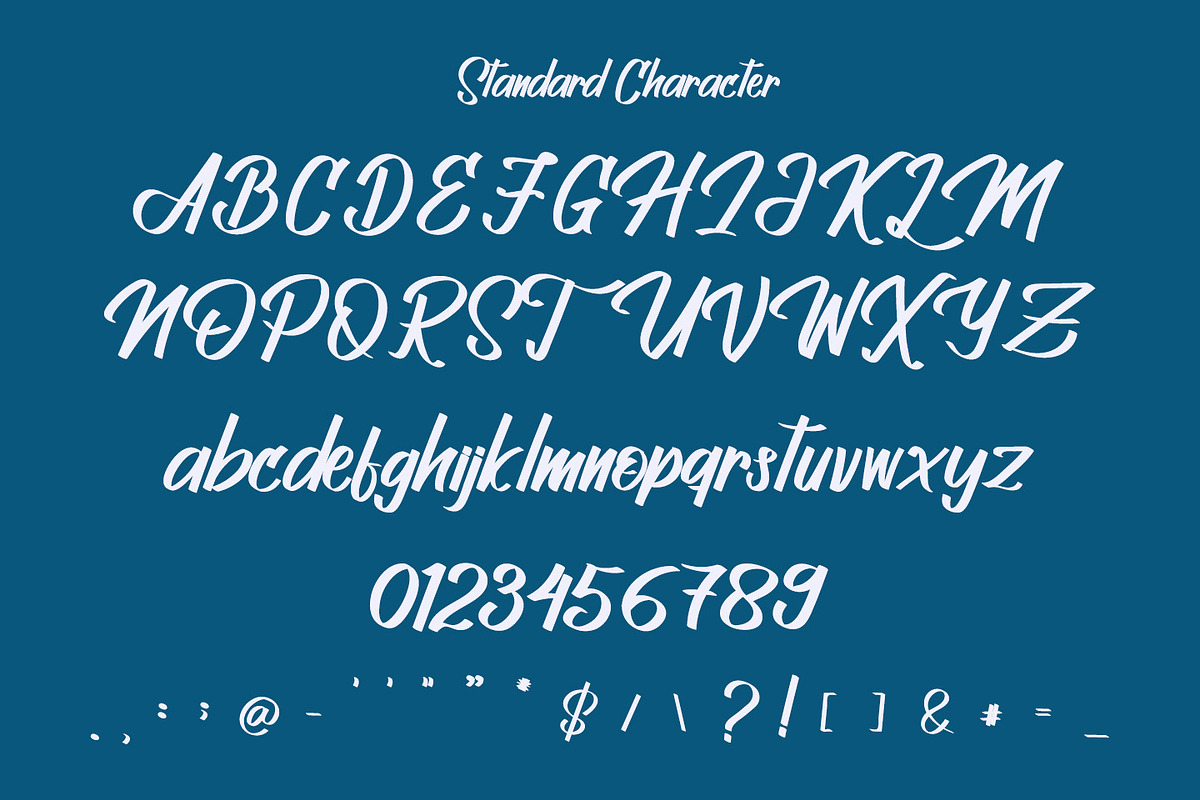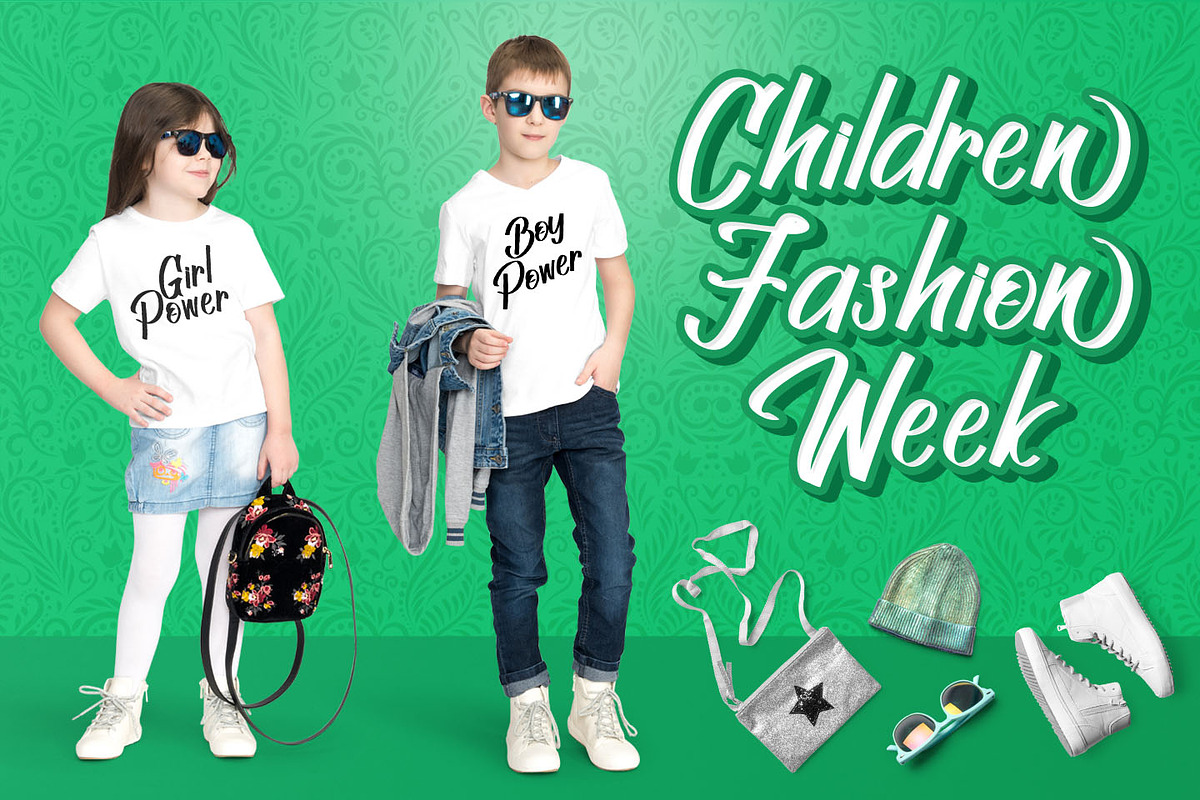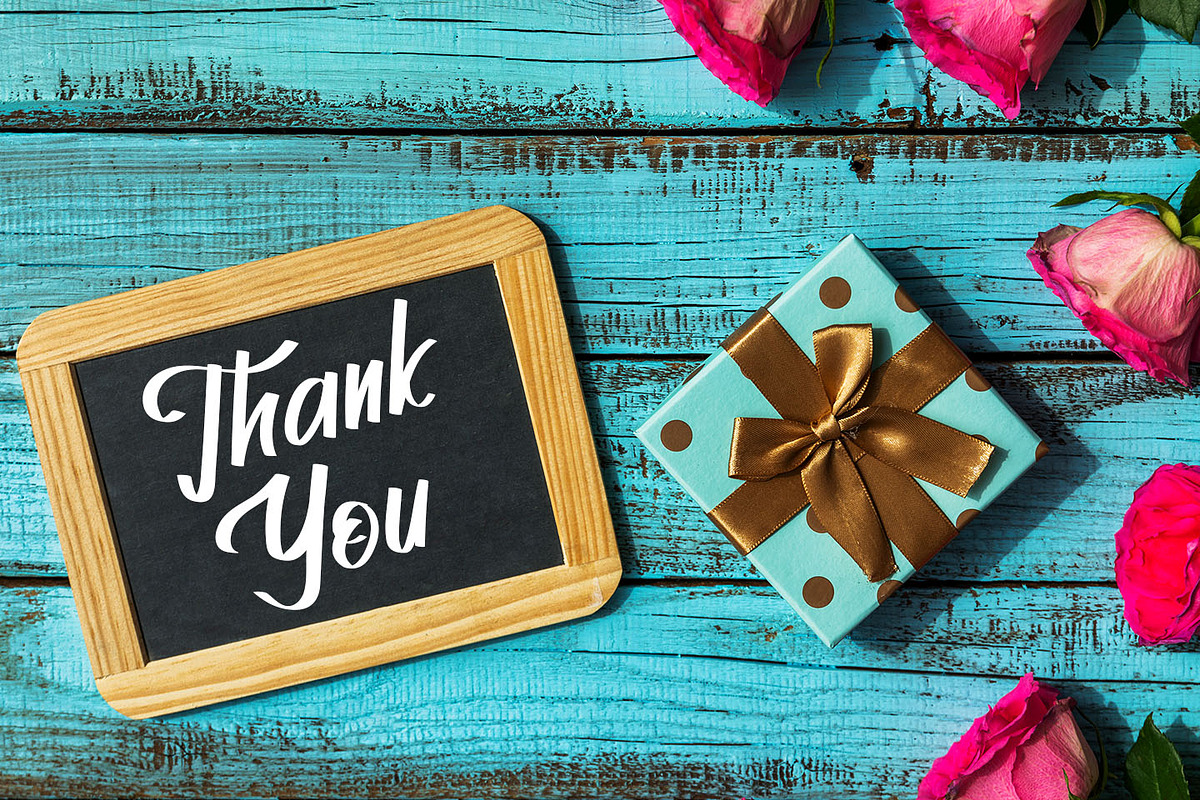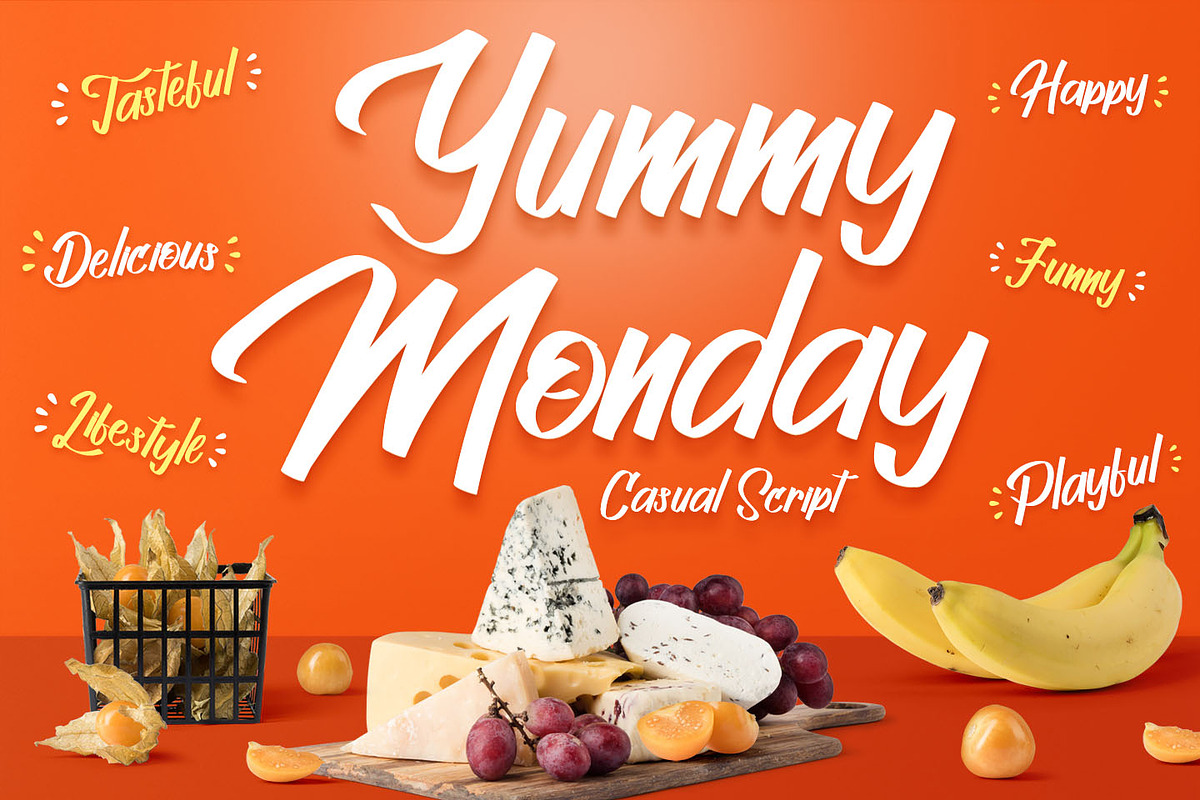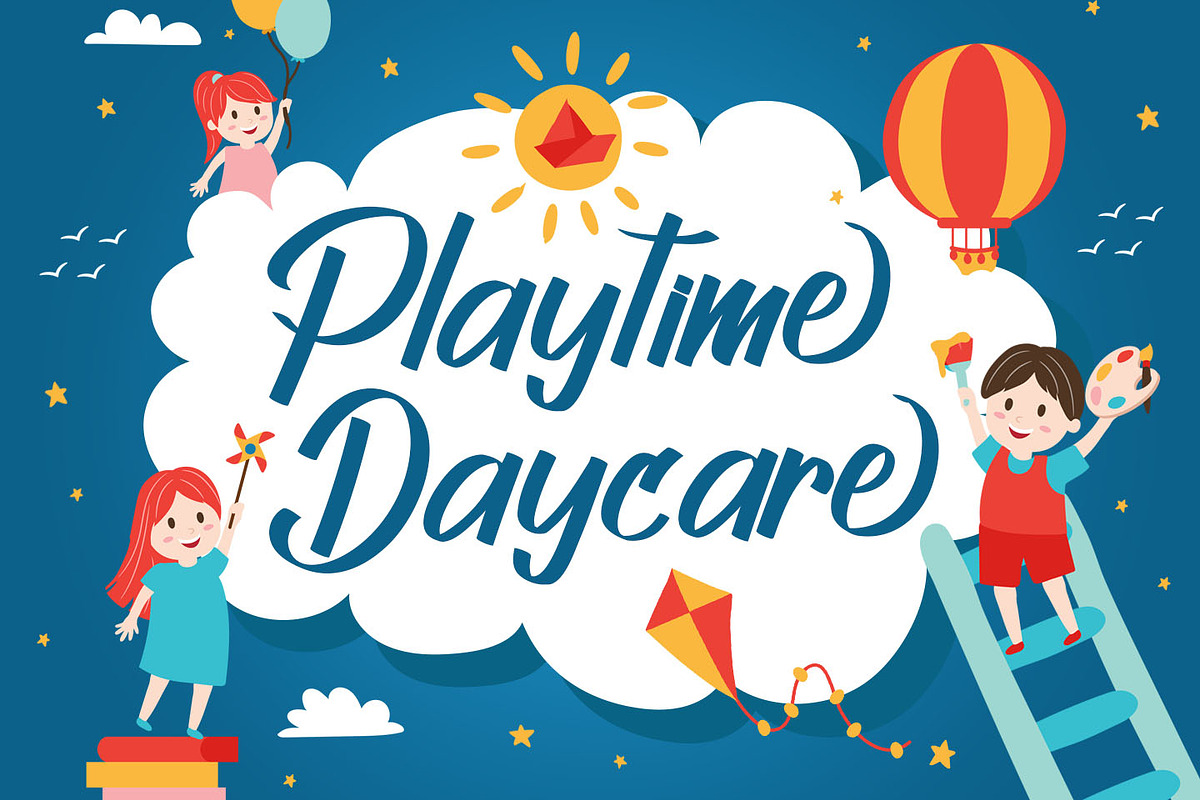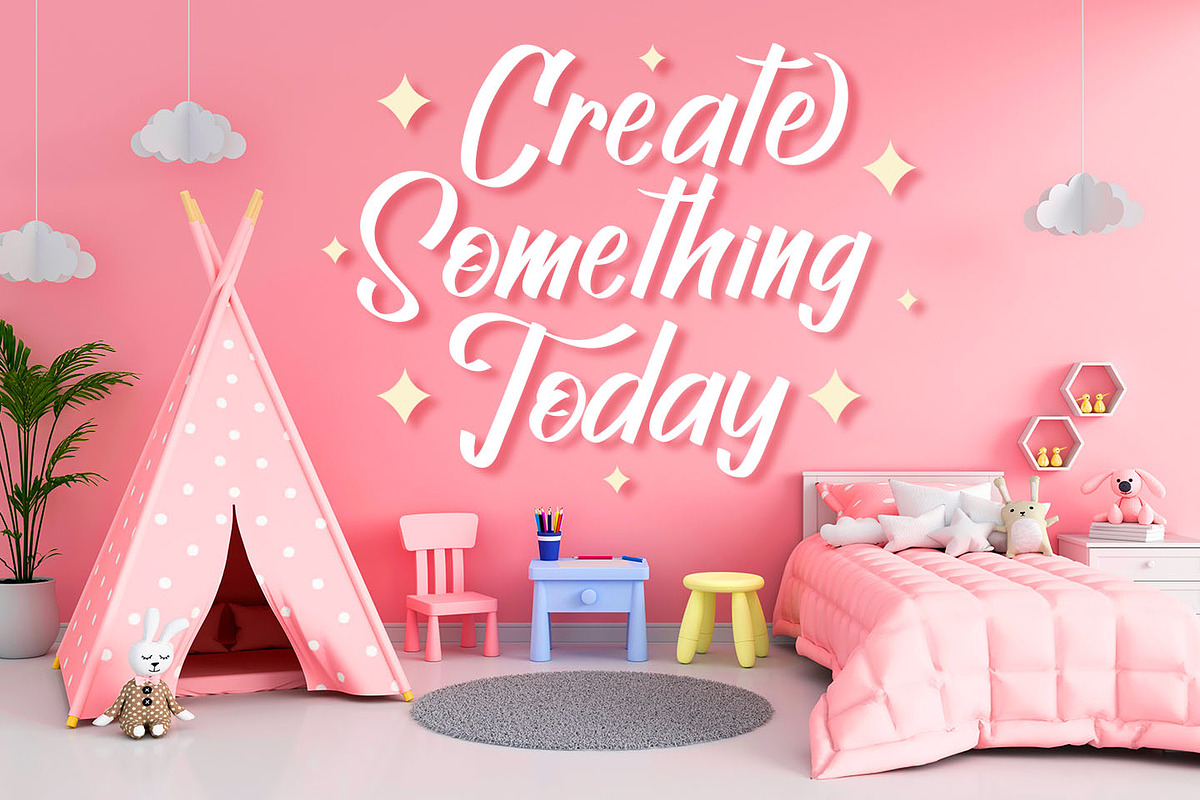
Yummy Monday - Casual Handwritten
Yummy Monday is a quirky and sweet display font. This font will easily add a fun touch to any craft!
Yummy Monday would be perfect for logos & branding, photography, watermark, social media posts, advertisements, invitation, product designs, label, stationery, product packaging, special events or anything that need handwriting taste.